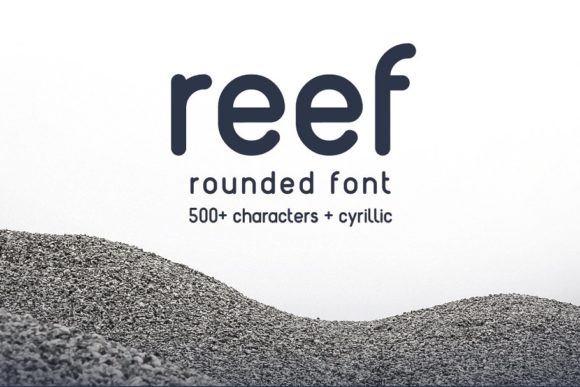
Journey into the captivating world of Reef Font, a sans serif masterpiece designed to leave an indelible mark on your creative endeavors. Crafted with meticulous care by WildOnes, Reef Font stands as a testament to the artistry and passion that typography can evoke.
Immerse yourself in the beauty of Reef Font's rounded curves and elegant lines. Its characters dance across the screen like a gentle breeze, carrying your words with grace and fluidity. Whether you're creating eye-catching headlines, captivating logos, or alluring social media posts, Reef Font will transform your designs into works of art.
Defy the ordinary and embrace the extraordinary with Reef Font. Its versatility knows no bounds, seamlessly adapting to a symphony of backgrounds, from vibrant and bustling to serene and minimalist. Unleash your creativity and explore endless possibilities as Reef Font becomes your trusted companion in the realm of visual communication.
As you delve deeper into the world of Reef Font, discover the hidden depths of its charm. Its subtle nuances and delicate details whisper stories of elegance and sophistication, adding a touch of magic to every project you undertake. Experience the joy of crafting designs that resonate with your audience, leaving them captivated by the sheer beauty of your creations.
Dare to be different, to stand out from the crowd. Choose Reef Font and embark on a journey of self-expression, where your ideas take center stage and your designs become a reflection of your unique personality. Let Reef Font be your muse, inspiring you to create visuals that leave a lasting impression, igniting imaginations and stirring hearts.
Embrace the power of Reef Font and unlock a world of creative possibilities. As you witness your designs come to life, you'll realize that fonts aren't just mere tools; they are the instruments that orchestrate emotions, convey messages, and shape perceptions. With Reef Font as your ally, you'll command attention, captivate hearts, and leave an enduring legacy of creativity.